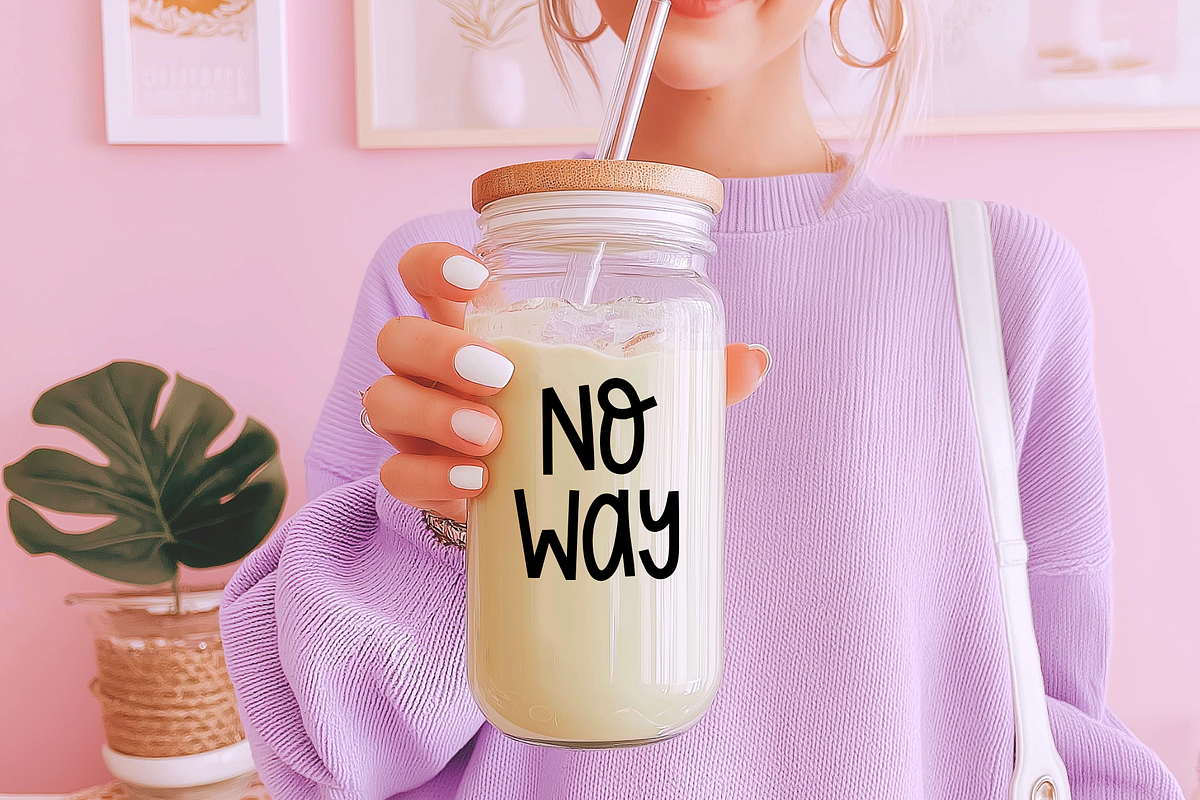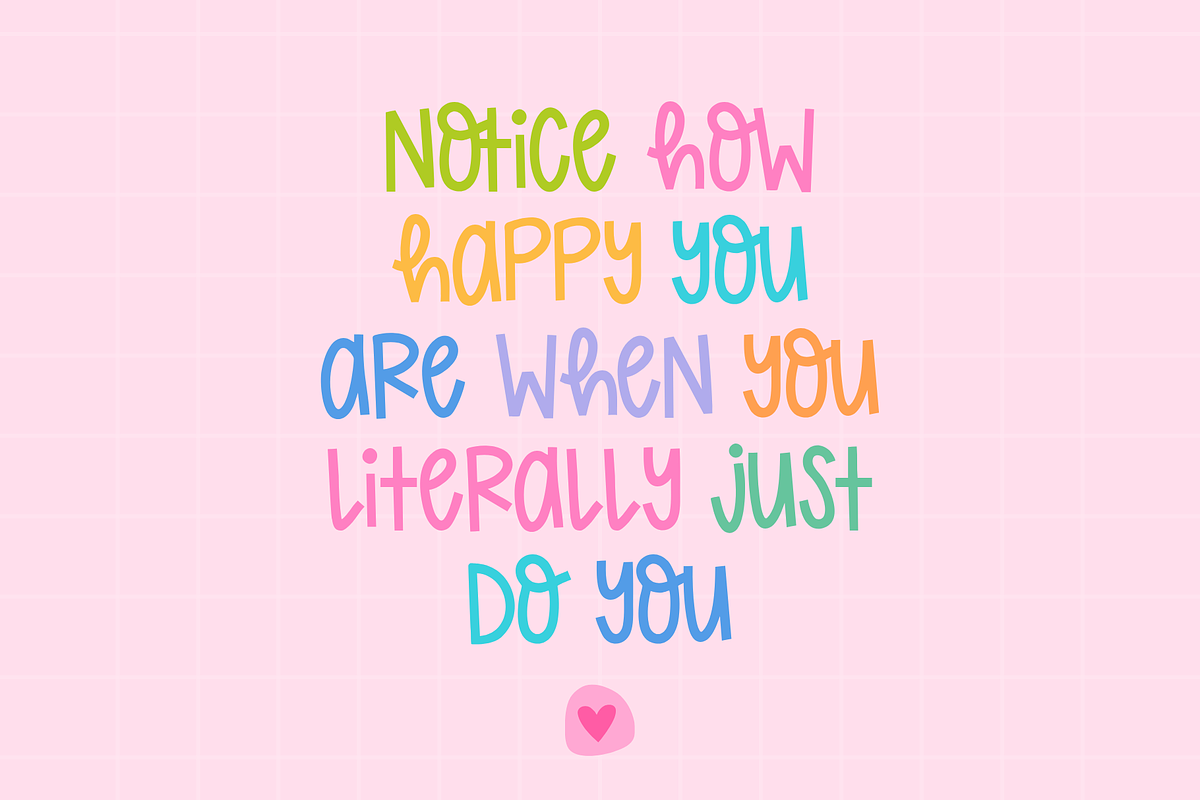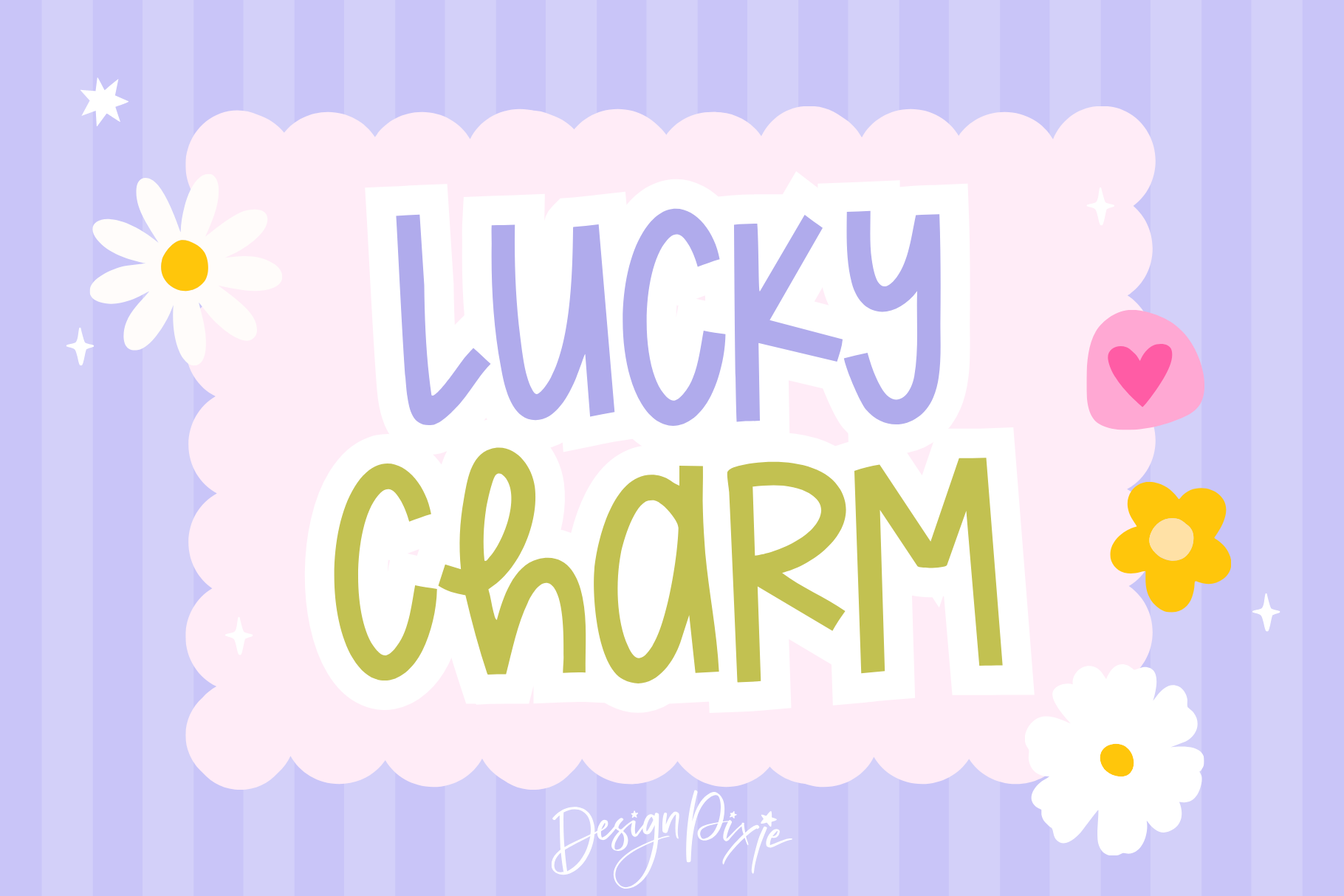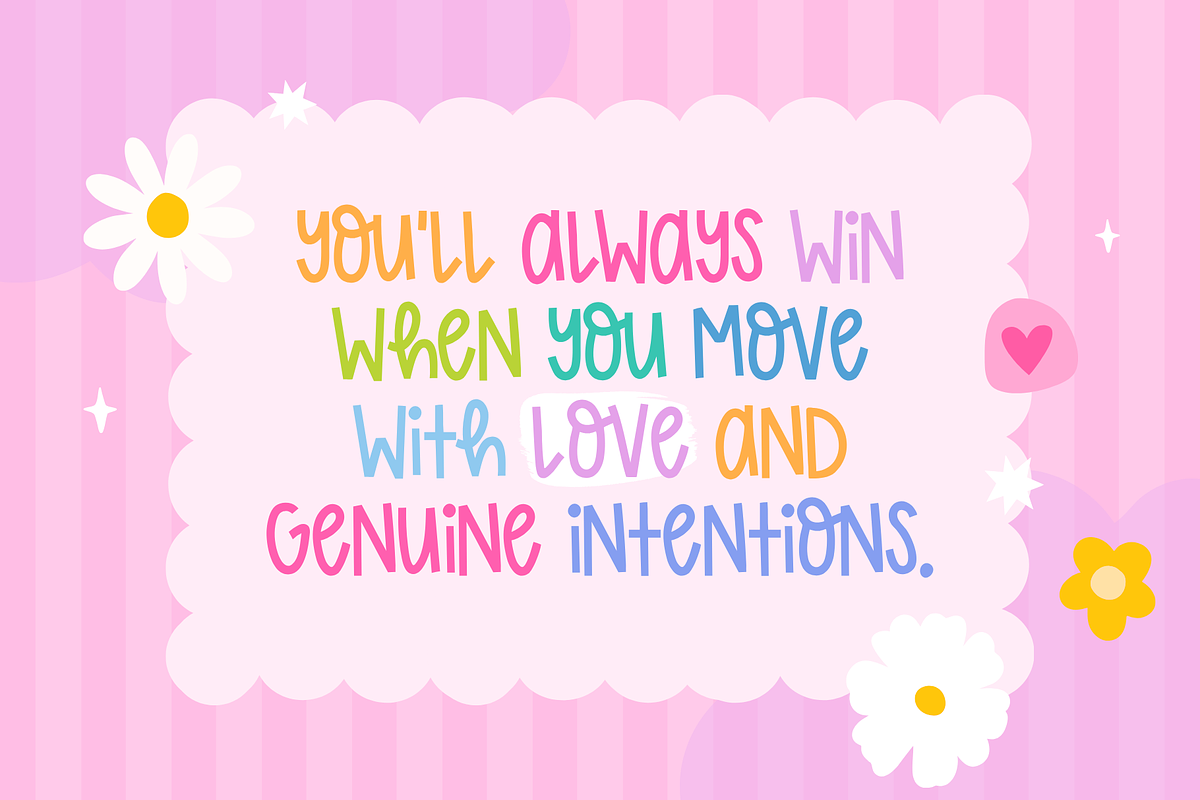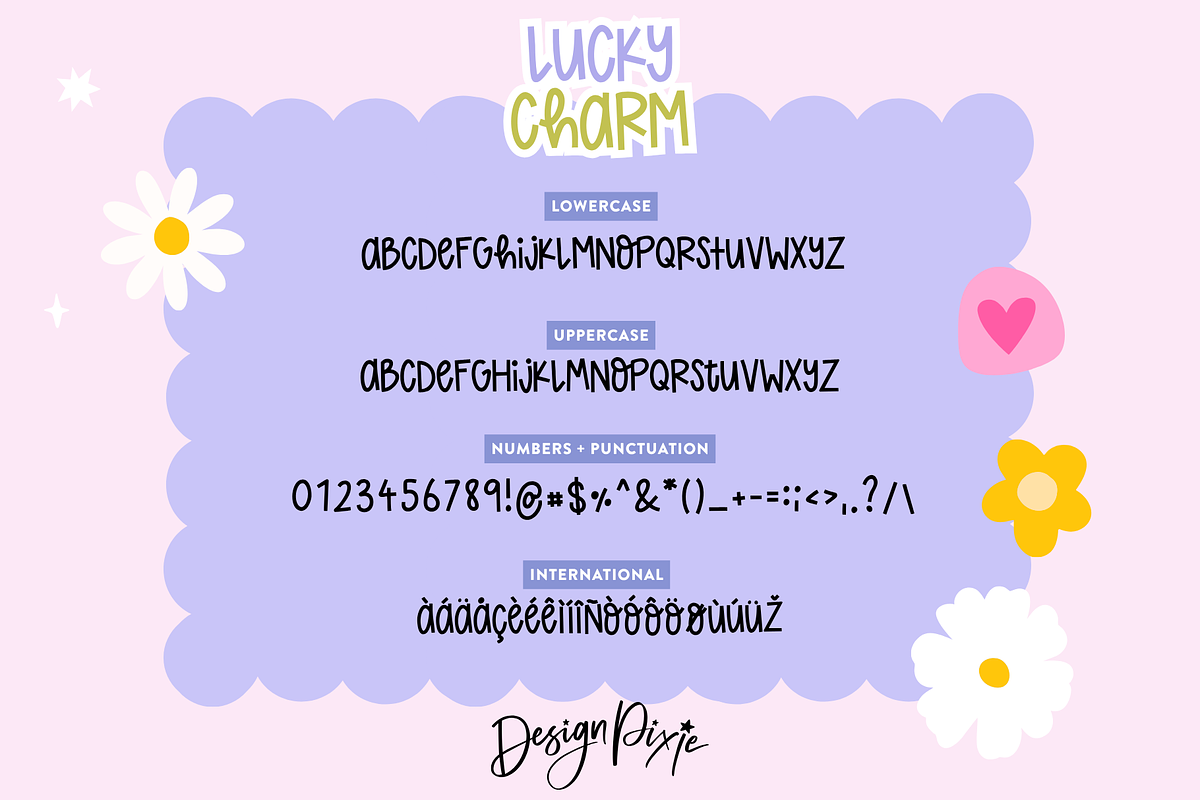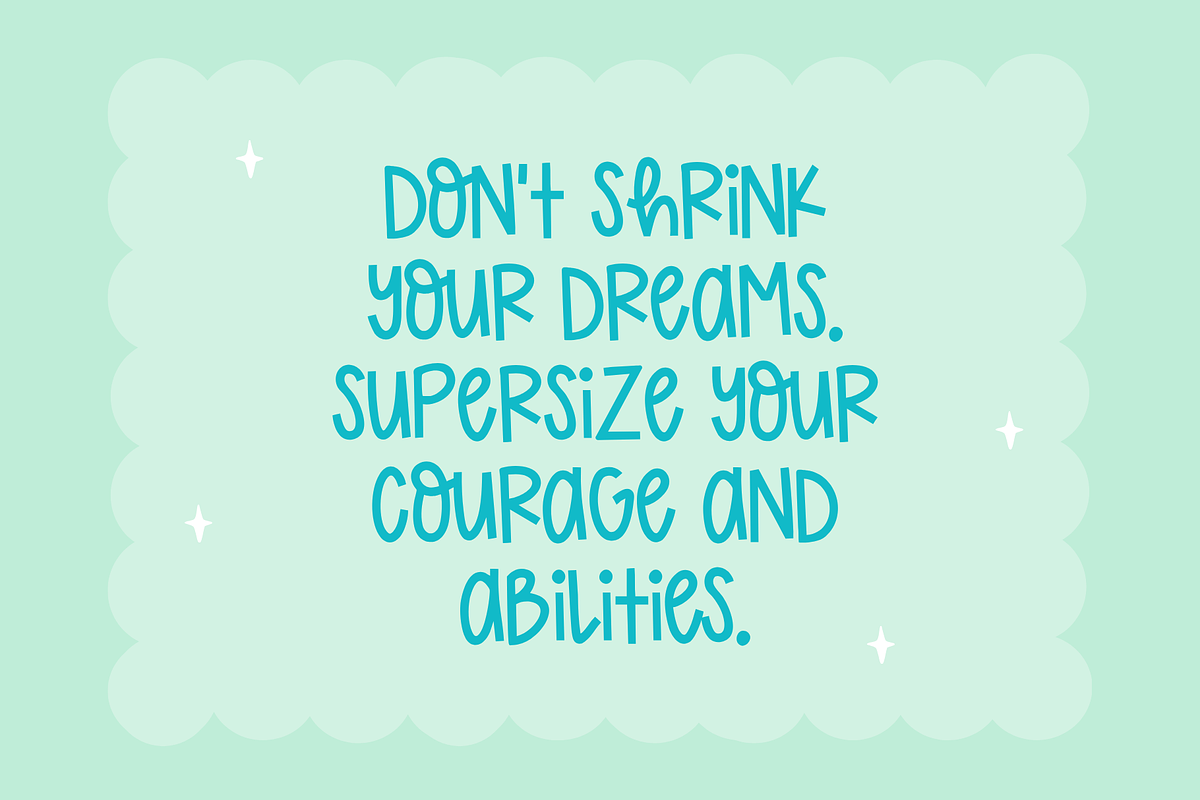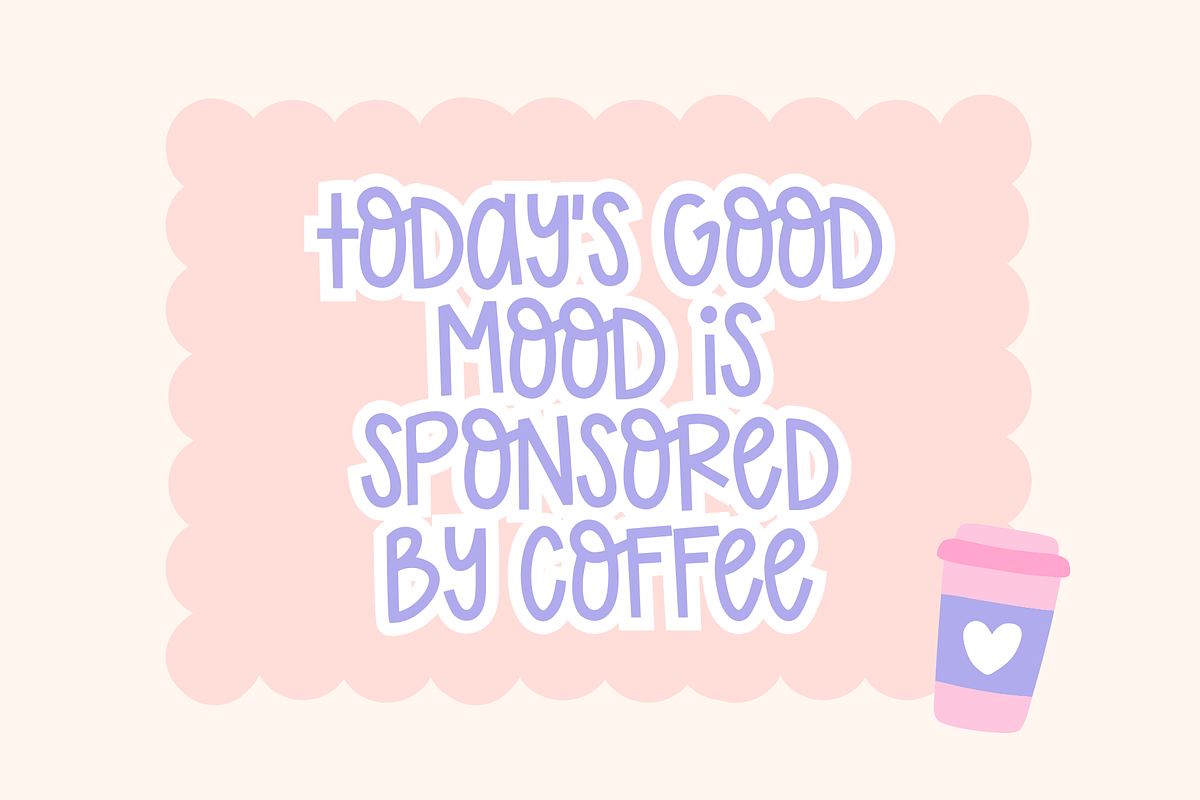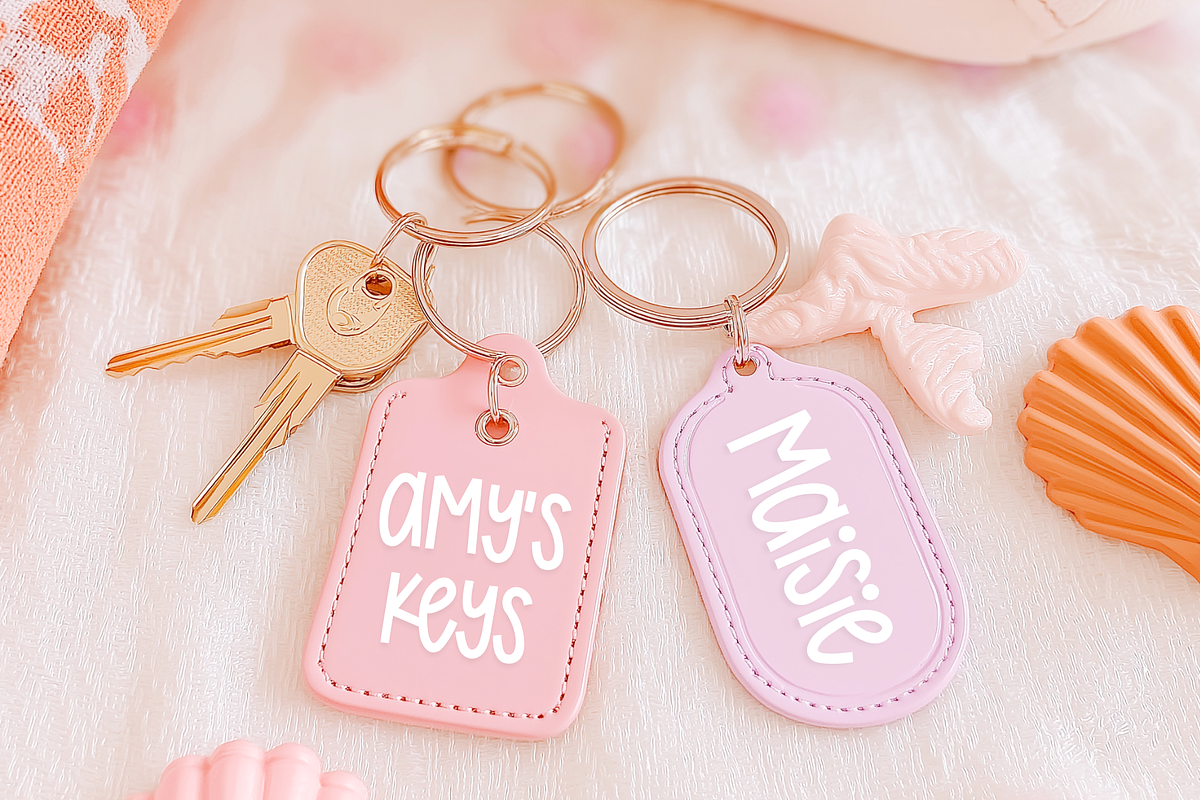
Lucky Charm Font
Meet Lucky Charm, the cute and quirky handwritten font that gives every design a sprinkle of personality. With its fun, friendly letterforms and smooth curves, Lucky Charm is perfect for Cricut projects, lettering quotes, product names, labels, stickers, shirts, cards, and anything you want to make feel a little extra special.
This font has that charming handmade vibe customers love. Whether you’re personalizing products with names, designing packaging, or creating digital downloads, Lucky Charm brings warmth and whimsy to every word.